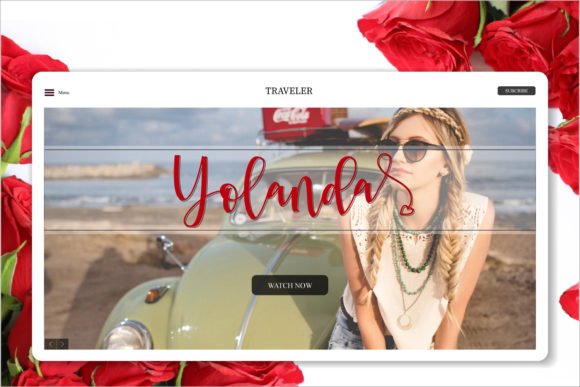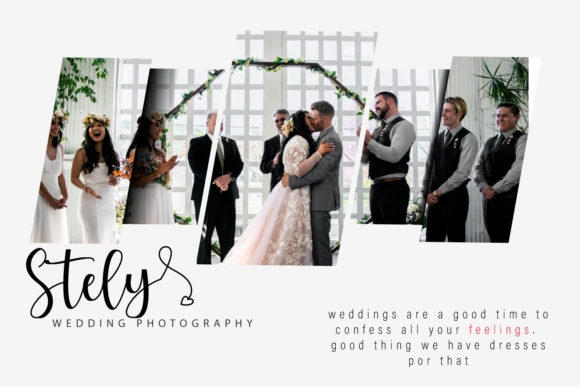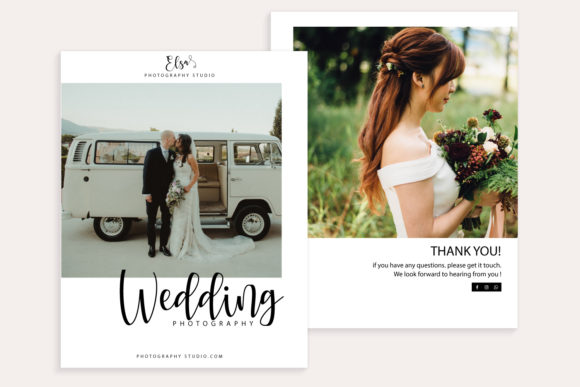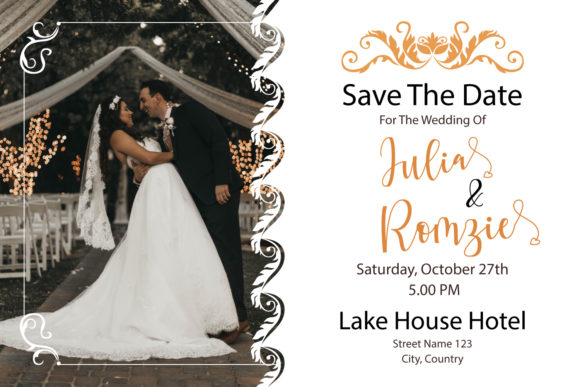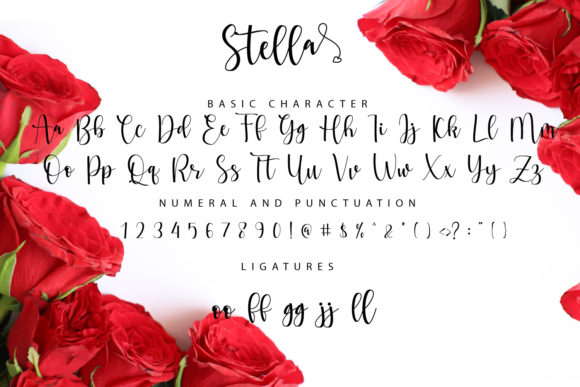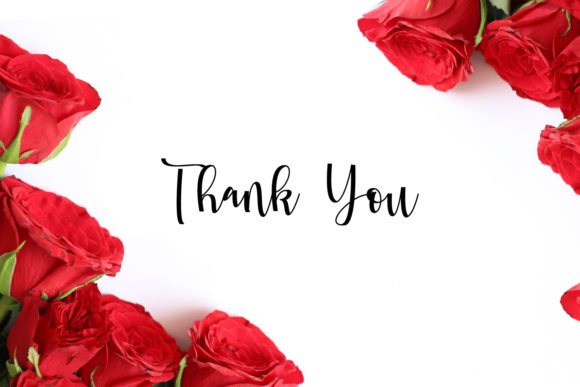
Stella Font
About Stella Font
Stella is an exquisite handwritten font, masterfully designed to become a true favorite. It maintains its classy calligraphic influences while feeling contemporary and fresh. This font is PUA encoded which means you can access all of the glyphs and swashes with ease! It features a varying baseline, smooth lines, gorgeous glyphs and stunning alternates.